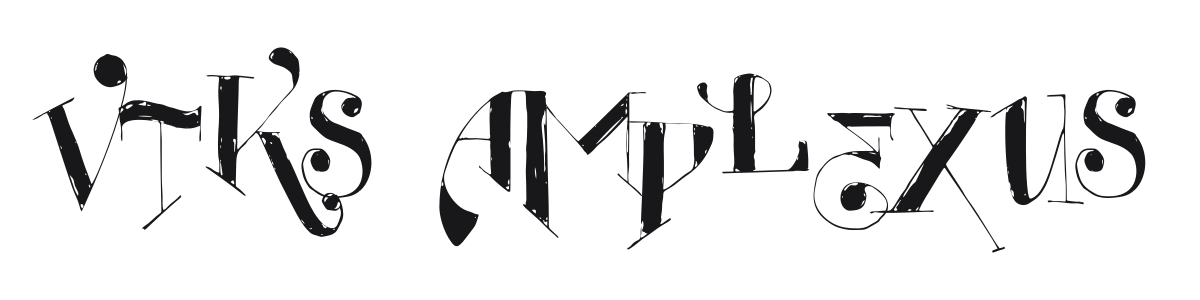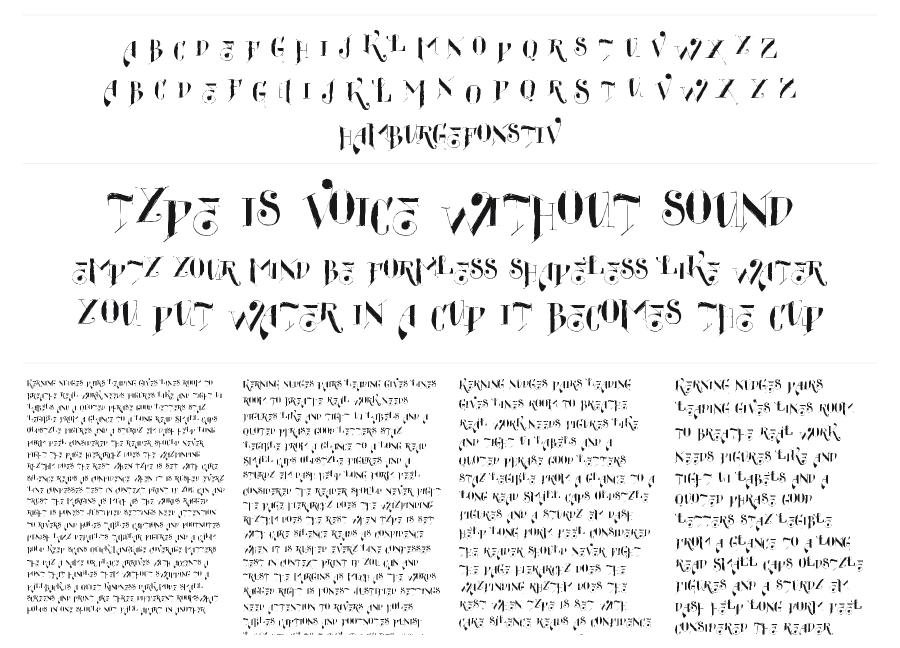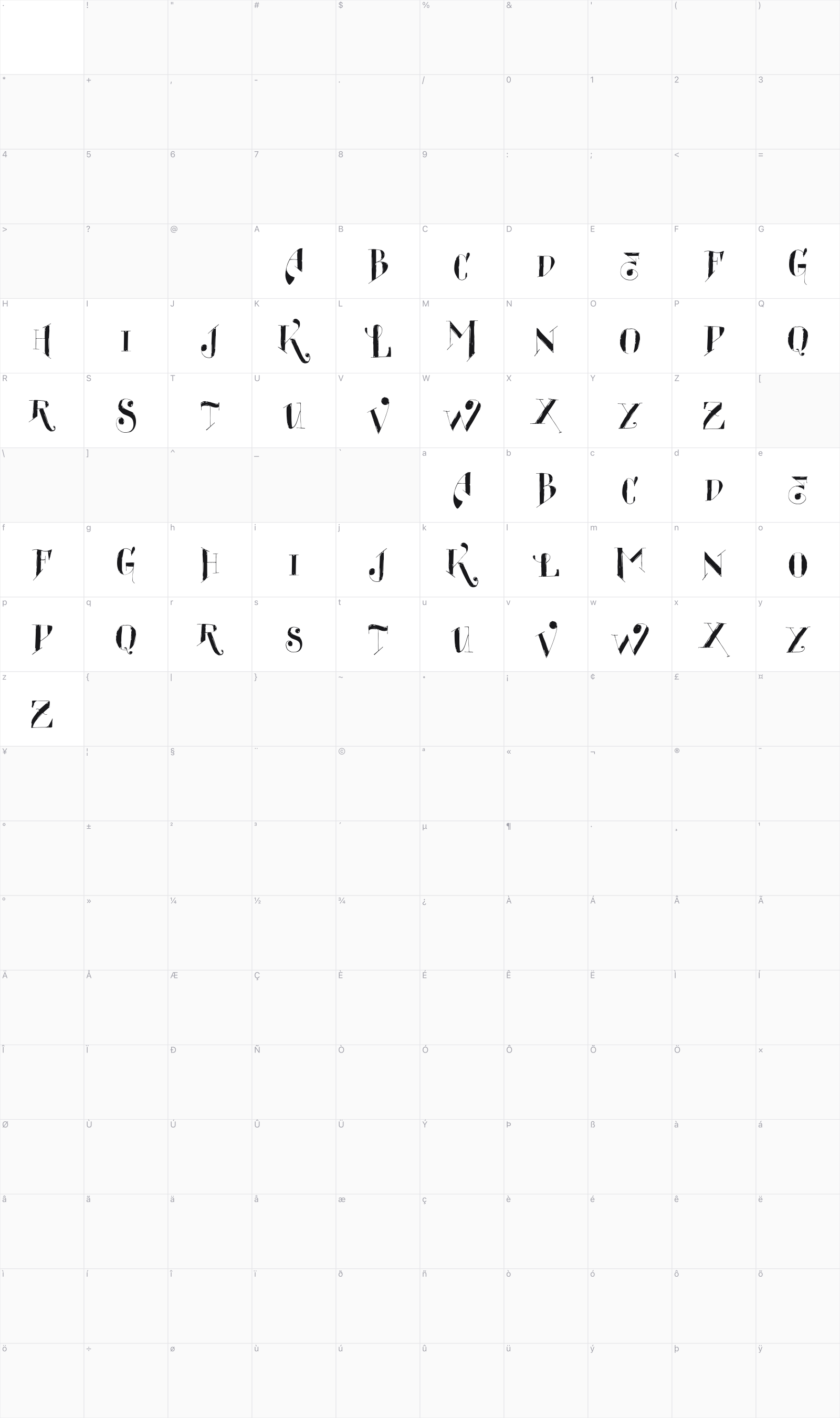
Vtks Amplexus
Vtks Amplexus is a wildly eclectic display face that fuses Victorian drama, Art Nouveau curves, and gothic tension into a single distressed alphabet. Each character feels hand-worn and ink-battered, with extreme stroke contrast and decorative details that refuse to sit still. It commands attention at large sizes, particularly for theatrical posters, album art, or any context that calls for dark vintage spectacle.